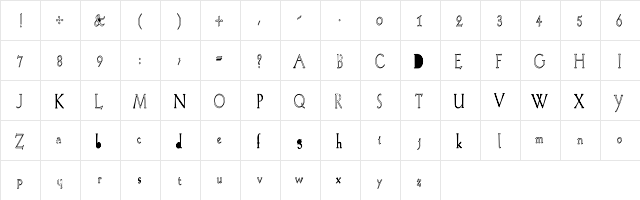
KochRomanHC Regular
Design Context for KochRomanHC Typeface
KochRomanHC offers clean, dependable letterforms without strong stylistic allegiance, making it a practical choice for designers who need flexibility.